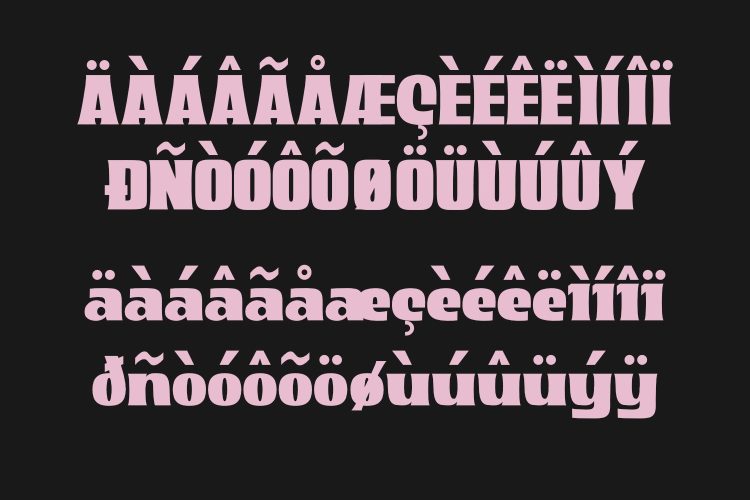
Discover the power of Andaga, a versatile display font that effortlessly captures attention and elevates your designs. With its captivating style and wide range of features, Andaga is perfect for various creative projects.
Immerse yourself in the world of typography with Andaga’s unique blend of uppercase and lowercase letters, ensuring a harmonious balance in your designs. Whether you’re crafting impactful headlines, eye-catching logos, or engaging posters, Andaga’s distinct style will leave a lasting impression.
Unlock your creativity with Andaga’s extensive character set, including numbers, punctuations, and multilingual support. Break language barriers and connect with audiences worldwide, as Andaga enables seamless communication in different languages.
With PUA encoding, Andaga provides easy access to special characters and unique features, empowering you to create truly remarkable designs. Let your imagination run wild as you explore the endless possibilities that Andaga offers.